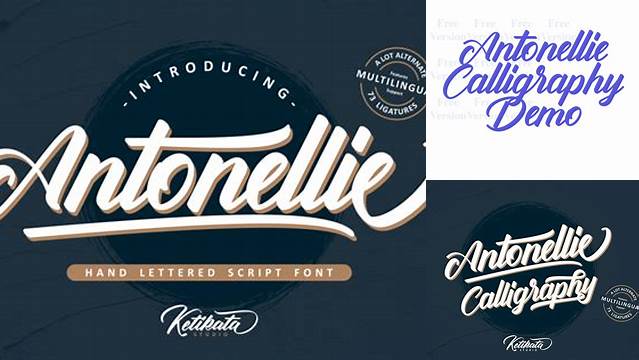
Alright, design enthusiasts! Let's dive headfirst into the world of beautiful typography with Antonellie Calligraphy Demo Font Free Download. This stunning font has been making waves, and for good reason. It's elegant, versatile, and perfect for a wide range of creative projects. Whether you're a seasoned designer or just starting your font journey, this guide is your ticket to understanding everything about Antonellie Calligraphy and, most importantly, how to snag it for free!
What Makes Antonellie Calligraphy Font So Special?
So, what's all the hype about? The magic of Antonellie Calligraphy lies in its graceful, flowing strokes. It emulates the artistry of hand-lettering, giving your designs a personal and sophisticated touch. Think about it – when you use Antonellie, you're injecting a bit of human warmth and creativity into your work. This font isn't just about letters; it's about creating a visual narrative, an experience. Its versatility allows it to be used across various design applications, from wedding invitations and branding materials to social media posts and website headers. The detail and care that goes into crafting each letter make it stand out. The subtle curves and elegant lines create a feeling of sophistication. Its visual appeal makes any design instantly more appealing. Moreover, the free demo version offers a great opportunity to test the waters and experiment with this beautiful font. You get a taste of its potential without any financial commitment. Overall, the unique combination of elegance, flexibility, and accessibility positions Antonellie Calligraphy as a valuable asset in any designer's toolkit. Its capacity to transform simple text into a work of art is what really separates it from generic fonts.
Benefits of Using Calligraphy Fonts
Using calligraphy fonts like Antonellie provides several advantages over standard fonts. Firstly, calligraphy fonts add a layer of elegance and sophistication. The flowing, artistic strokes are visually more appealing than basic, often sterile, typefaces. Secondly, they can create a more personal and unique brand identity. Calligraphy fonts are less common than standard fonts, so they help a brand stand out. Calligraphy fonts also evoke a sense of craftsmanship and attention to detail. This makes your designs feel more polished and professional. Also, they are excellent for conveying emotions and setting a specific tone. The curves and the style of the lettering have a significant emotional impact. Calligraphy fonts can make your designs more engaging and memorable. The intricate detailing draws the viewer's eye and creates a more enjoyable experience. Because of their unique characteristics, they also improve the overall visual appeal of any design. The use of these fonts will add a touch of refinement. Ultimately, integrating calligraphy fonts allows designers to create stunning visuals that leave a lasting impression. This is particularly valuable in today's competitive digital landscape. Overall, they are a key element in enhancing the aesthetic appeal of your design.
Potential Applications for Antonellie Calligraphy
Antonellie Calligraphy is perfect for a ton of different projects. It's an absolute star for wedding invitations, where its romantic and delicate feel sets the tone perfectly. Imagine the elegance it brings to the names and details. Beyond that, it's great for branding projects, especially for businesses that want to convey a sense of sophistication and artistry. Think logos, business cards, and letterheads. It also shines on social media, where it can make your quotes, captions, or graphics stand out from the crowd. Another great application is in creating beautiful website headers and titles. Using this font can instantly make your site more visually appealing. Additionally, Antonellie is fantastic for creating personalized greeting cards and thank-you notes. If you're into crafting, you can use it for scrapbooking, creating wall art, and other DIY projects. If you love to personalize gifts, it makes a fantastic choice. Antonellie Calligraphy is also an excellent choice for designing certificates and awards. In short, Antonellie Calligraphy's versatility and style make it ideal for various applications. This makes it a valuable addition to a designer's font library.